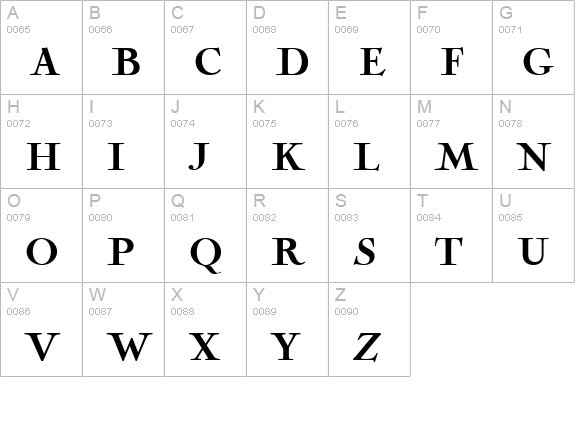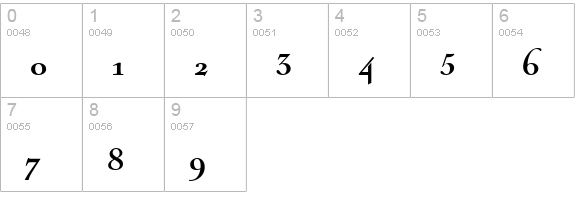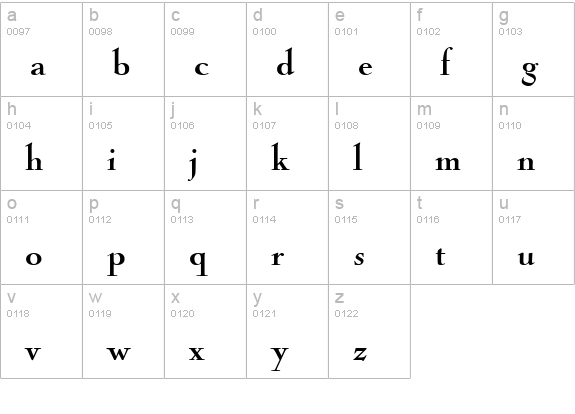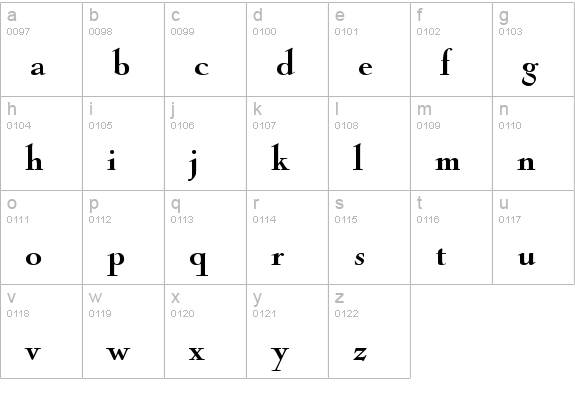
NicolasCocTBla font is a sophisticated and elegant typeface that exudes a sense of modernity and style. With its unique blend of sharp lines and gentle curves, this font is perfect for adding a touch of class to any design project. Whether you're creating a sleek logo, designing a striking poster, or crafting a stylish website, NicolasCocTBla font is sure to make a statement. The best part? This stunning font is completely free to download at FontsMarket.com. Yes, you read that right - you can access this premium font without spending a penny! So why wait? Elevate your designs with the beauty of NicolasCocTBla font today.